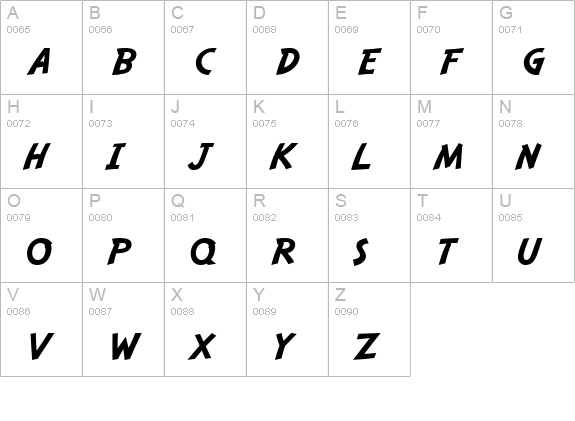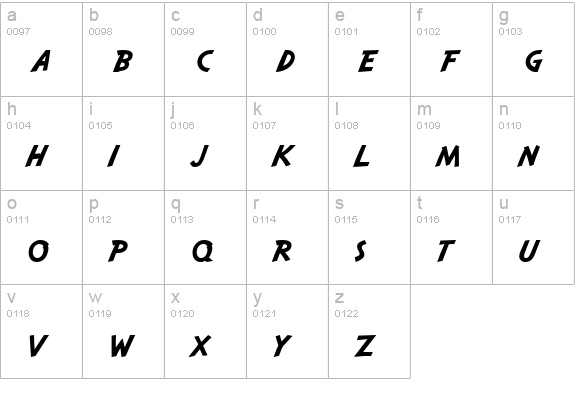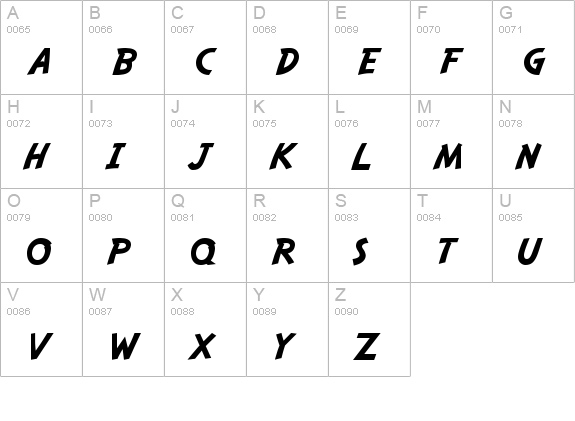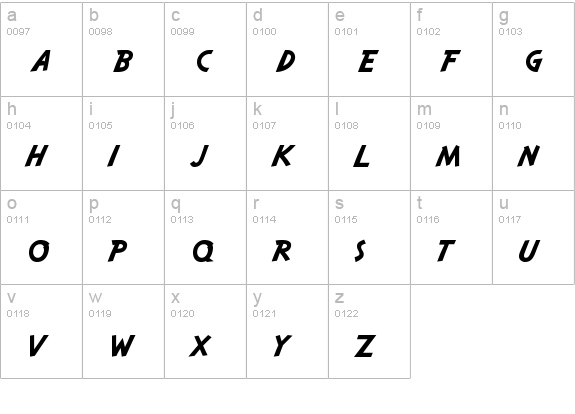
SafariRegular Font Details
SafariRegular is a stunning font that effortlessly captures the essence of adventure and exploration. With its bold and balanced letterforms, this typeface is perfect for creating captivating headlines, striking logos, and eye-catching designs. Its smooth curves and clean lines give it a timeless appeal that is both elegant and modern. What sets SafariRegular apart is its versatility. Whether you're designing for a travel blog, a wildlife magazine, or a safari-themed event, this font will bring your creations to life. Its legibility and readability make it easy to use in various sizes and contexts, ensuring that your message is effectively communicated to your audience. But what makes SafariRegular even more exceptional is that it is available for free at FontsMarket.com. That's right, you can download this incredible font without spending a dime. FontsMarket.com offers a wide selection of high-quality fonts, and SafariRegular is just one of the many gems you can find there. So why wait? Go ahead and explore the world of typography with SafariRegular. Download it now from FontsMarket.com and let your creativity roam free.